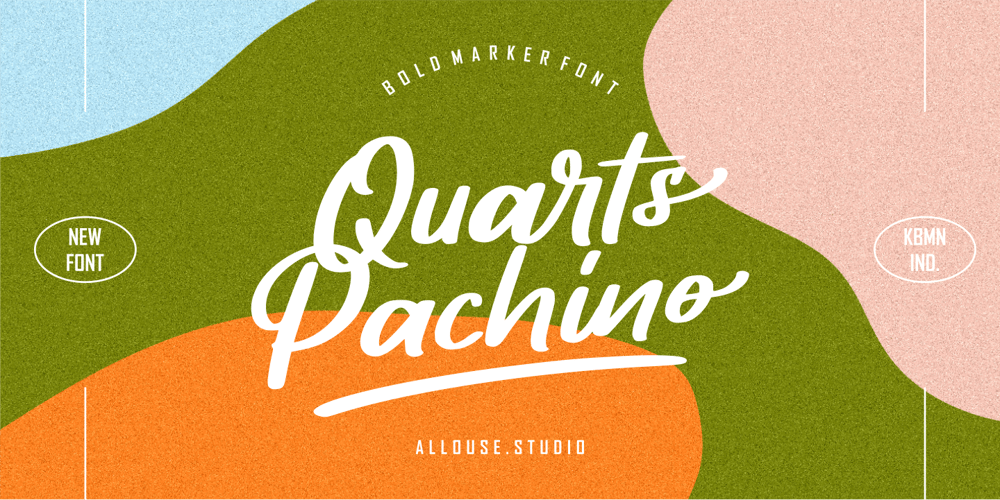
Quarts Pachino Font Family was designed by Fachrizal Yusuf and published by Allouse Studio. Quarts Pachino contains 1 styles and family package options. Proudly Presenting, Quarts Pachino a Bold Marker Font.Quarts Pachino is perfect for any tittles, logo, product packaging, branding project, megazine, social media, wedding, or just used to express words above the background.Quarts Pachino come with many ligatures, ending swash and come with Multi-Lingual Support.Enjoy the font, feel free to comment or feedback, send me PM or email. Thank You!